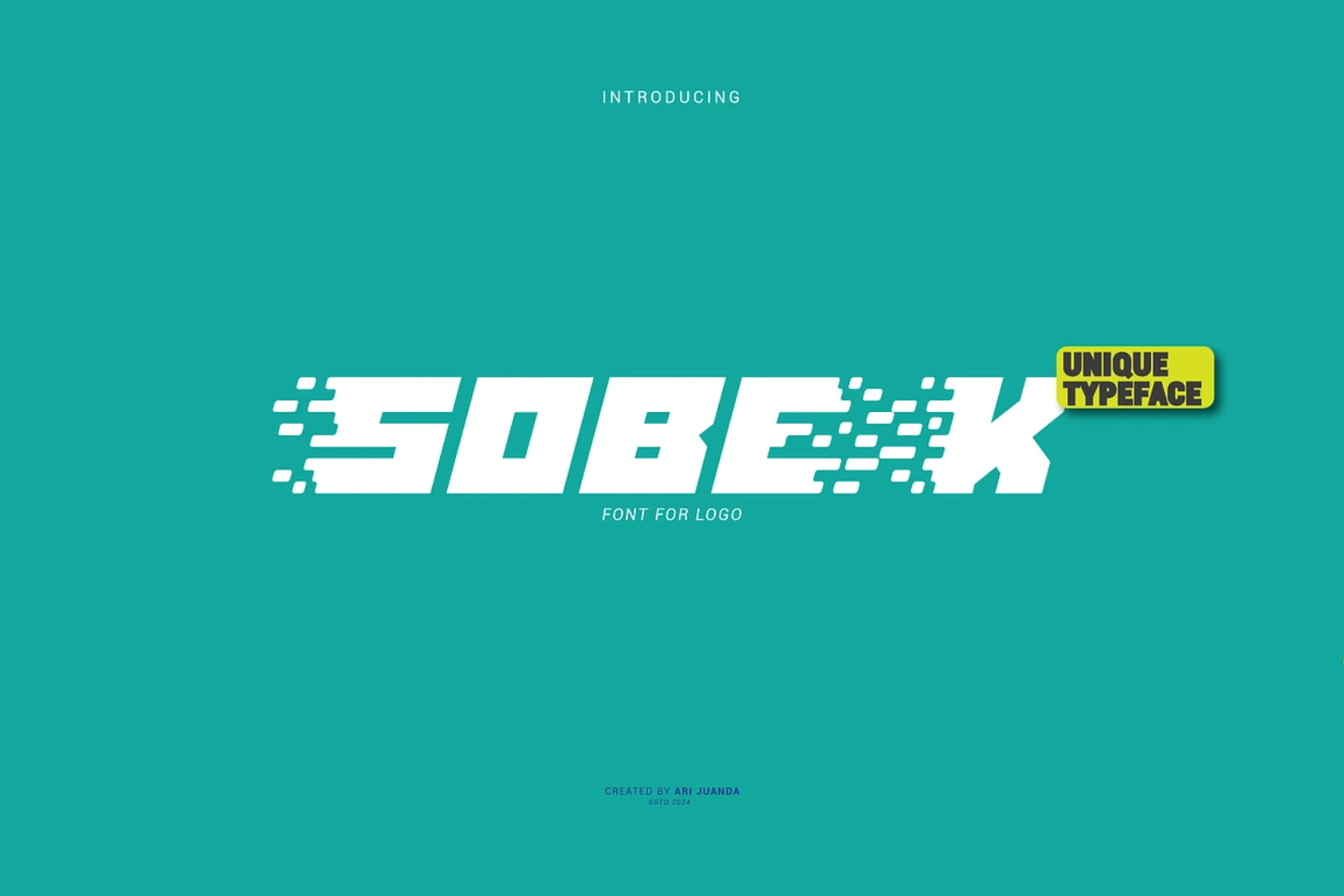
Sobek - Decorative Display
Sobek – Dynamic Torn Display Font
Sobek is a bold and dynamic display font designed to make typography feel fast, sharp, and full of movement. Its distinctive uppercase characters feature fragmented details that create a striking visual impression, giving words an energetic and aggressive character.
What makes Sobek truly unique is its combination of uppercase characters and specially designed uppercase alternates. When the alternates are placed in the middle of a word and combined with the default characters, the lettering appears to tear apart, creating a dramatic torn, ripped, and fragmented effect. This distinctive feature gives you the freedom to transform an ordinary word into a more expressive and dynamic typographic composition.
Sobek also includes default lowercase characters, allowing you to create different typographic combinations while maintaining the font's strong visual identity. Use the standard uppercase for a clean and powerful appearance, or introduce the alternate characters to create a more aggressive and disrupted look.
Perfect For
- Sports and racing graphics
- Automotive and motorsport branding
- Gaming and esports designs
- Action movie titles and posters
- Streetwear and apparel
- Music artwork and album covers
- Event posters and promotional graphics
- Dynamic logos and brand identities
- Headlines, titles, and advertising
- Posters requiring a bold sense of speed and movement
- Dynamic display font
- Distinctive fragmented uppercase design
- Uppercase alternate characters
- Torn and ripped visual effect through alternate combinations
- Default lowercase characters
- Sharp and energetic letterforms
- Designed for expressive display typography
- Suitable for logos, headlines, posters, and branding
Why You'll Love Sobek
Sobek is more than a bold display font—it gives you a way to visually break apart your typography. By strategically combining the default uppercase characters with the alternate characters, you can create words that appear torn, fragmented, and full of movement.
Whether you're designing a racing identity, an action-oriented poster, a gaming logo, or bold apparel graphics, Sobek brings a distinctive sense of energy and impact to your typography.
Tear the word apart. Make your typography move.